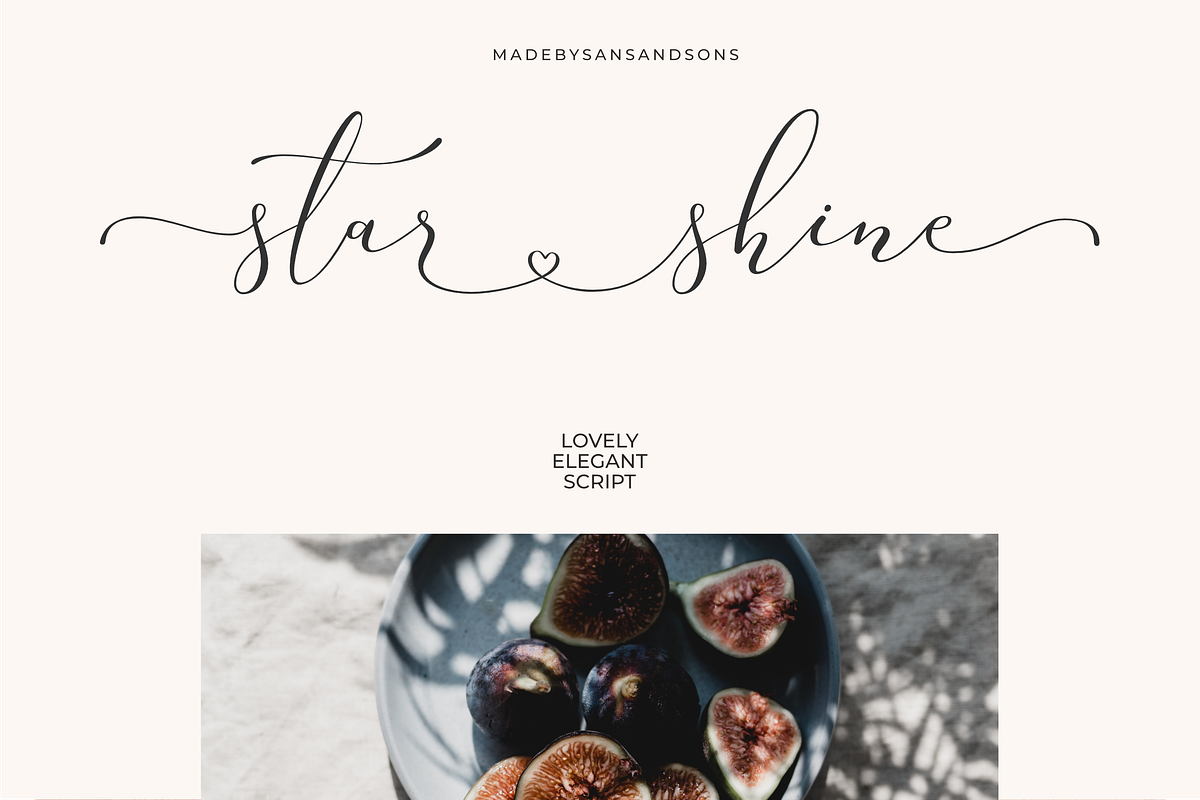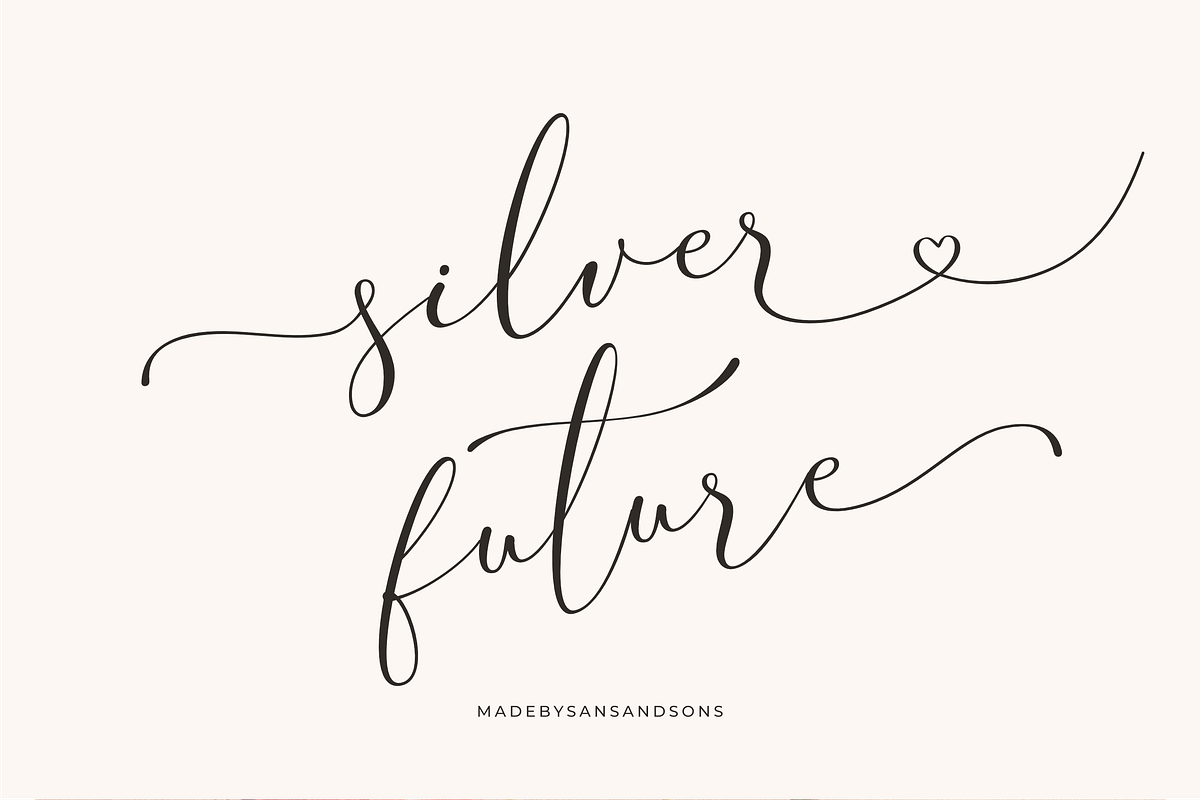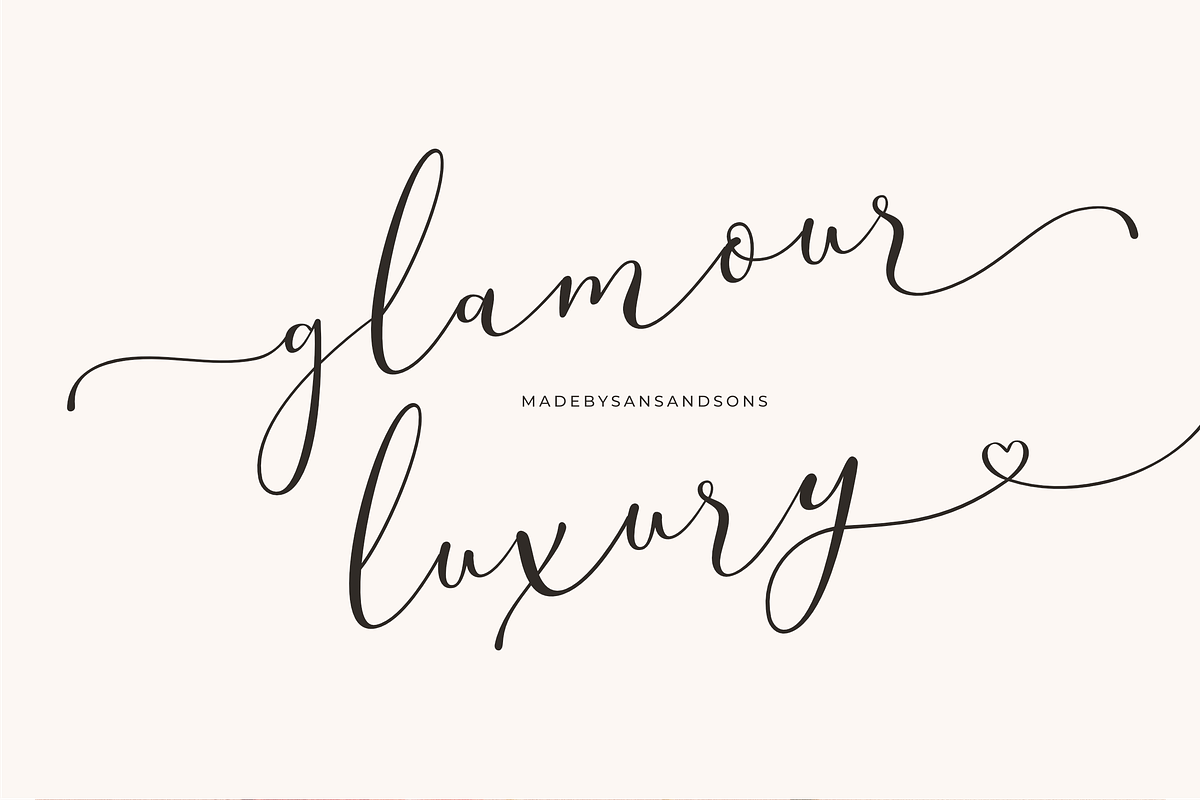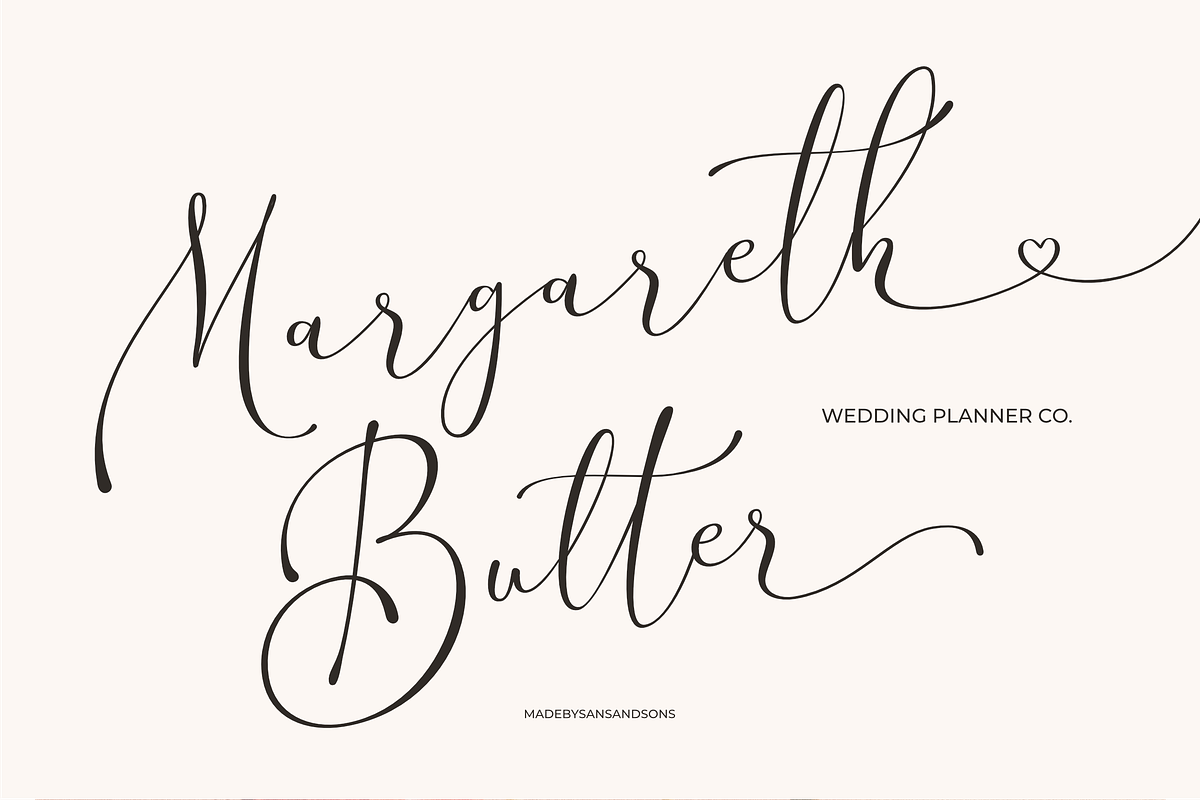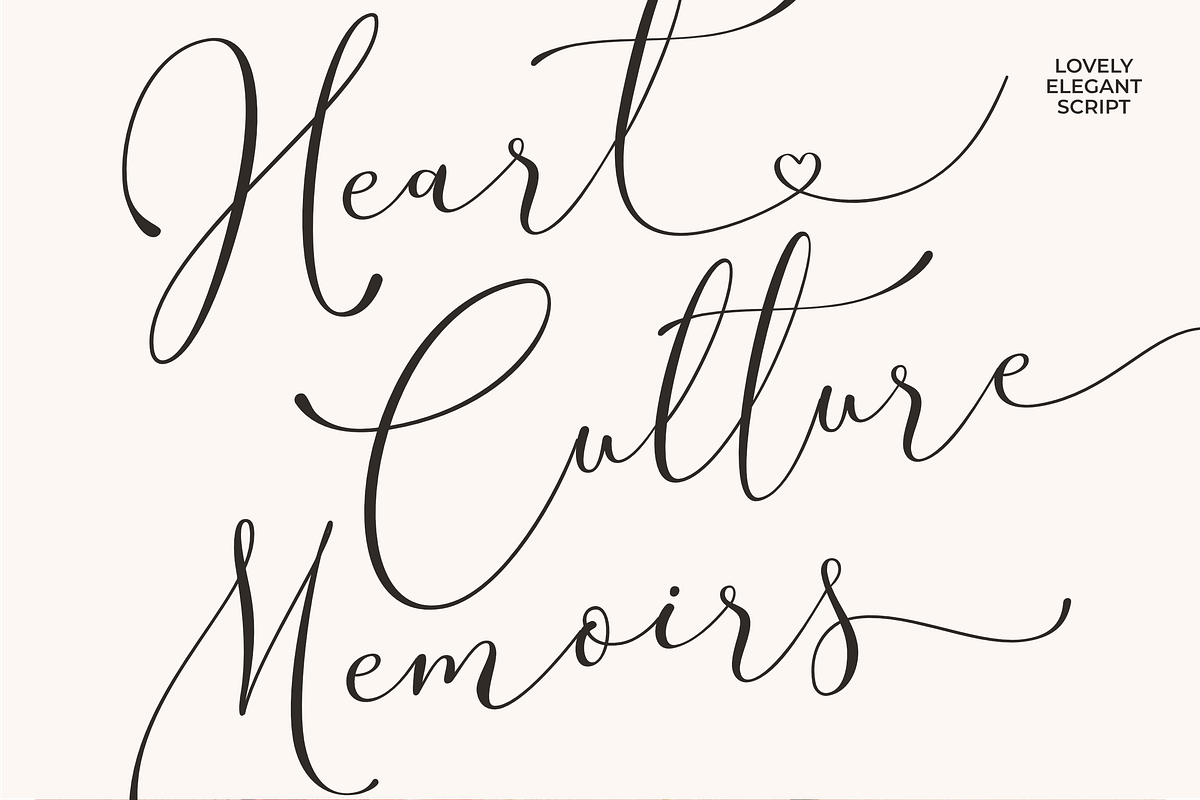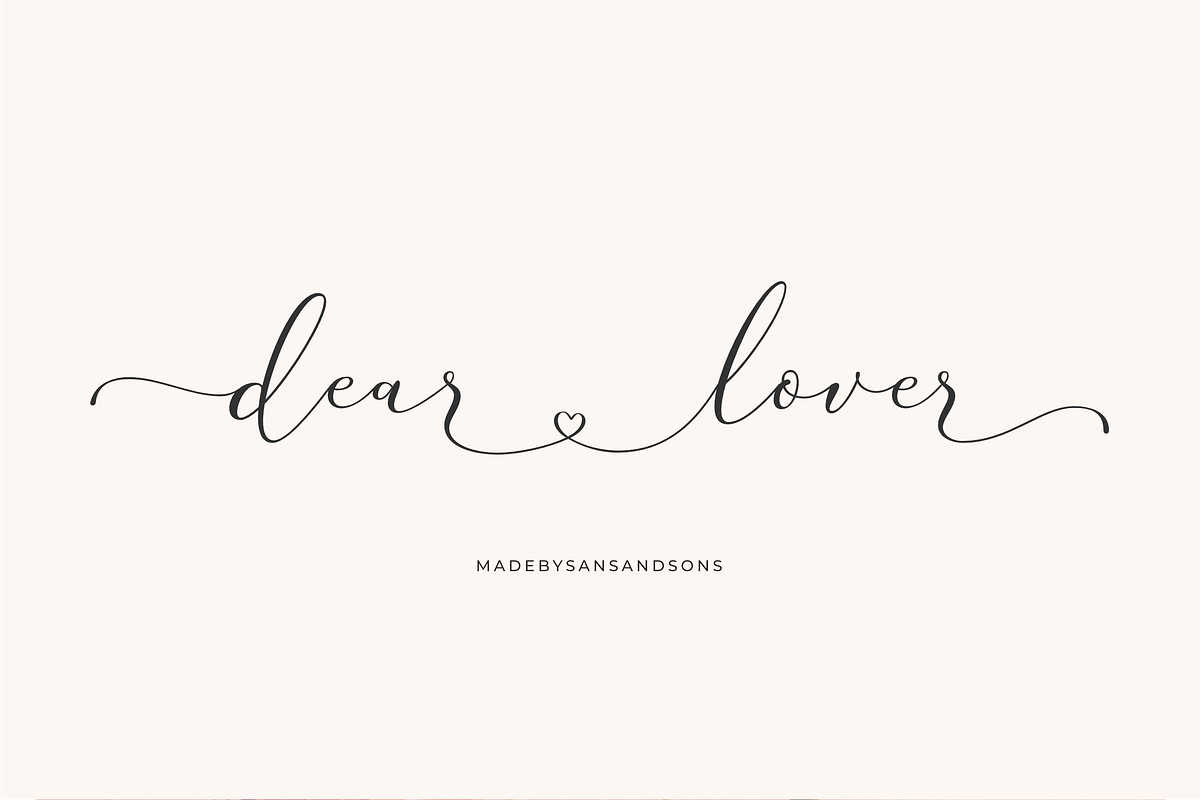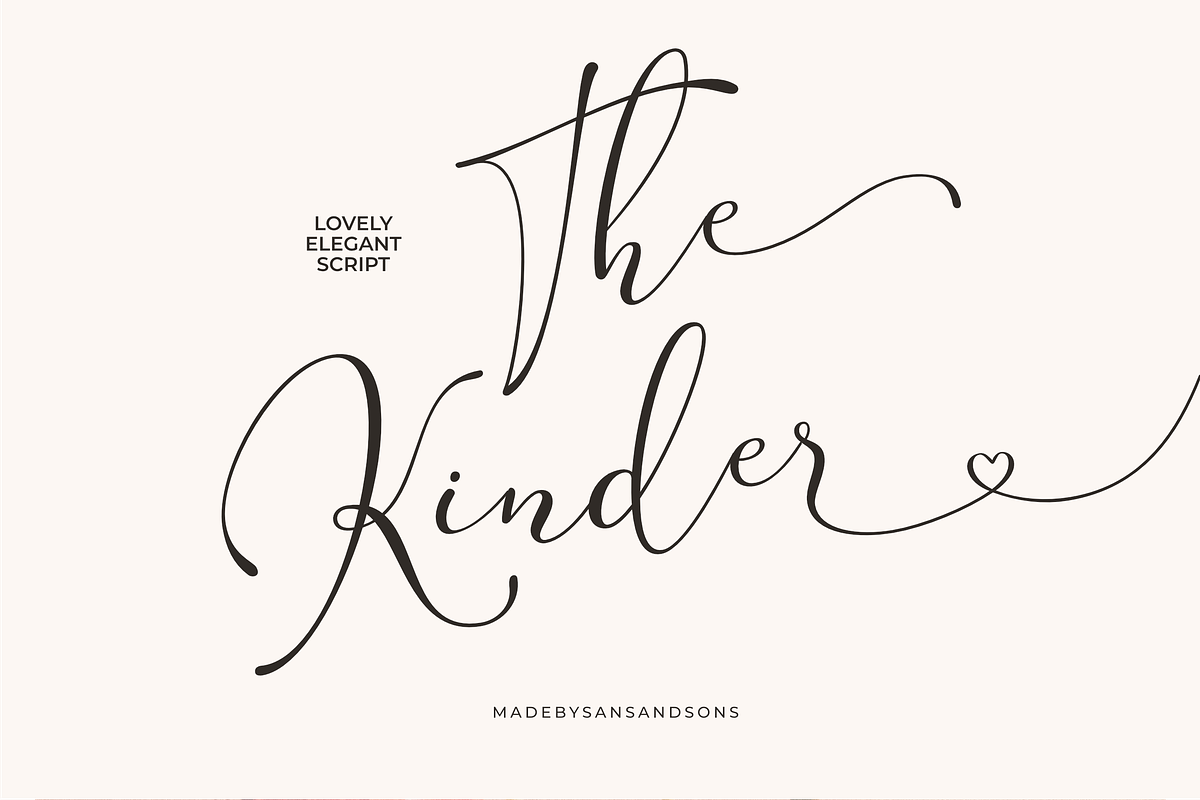
Silver Future - Romantic Script
Silver Future - a Heart and Lovely Script Font by Sans and Sons
Introducing our new "Silver Future" Modern Calligraphy Script with Elegant Style is perfect for branding, logos, invitation, master heads, and more.